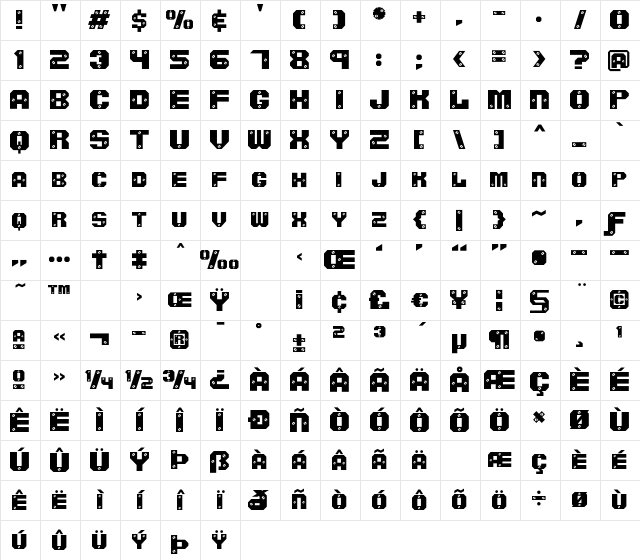
ScrewedAOE Regular Free Font
ScrewedAOE Regular
Complete ScrewedAOE Regular glyph index. Displaying only characters natively supported by ScrewedAOE Regular font.
Design Context for ScrewedAOE
ScrewedAOE is a composed and adaptable typeface that performs quietly and consistently across a wide range of design contexts.